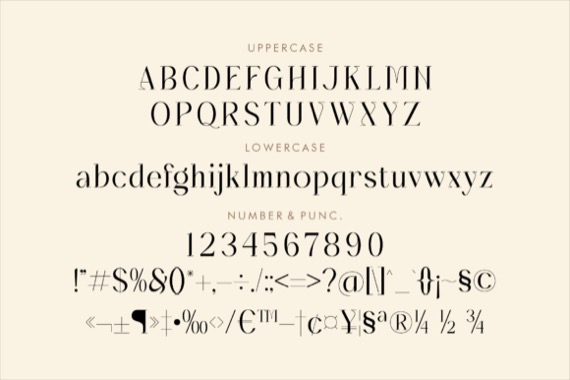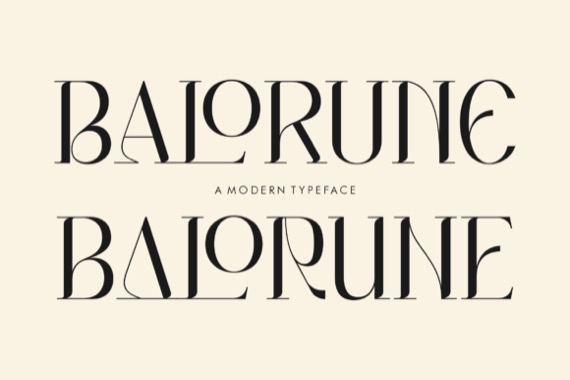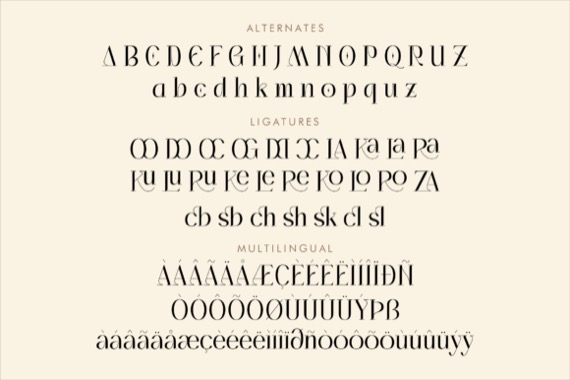
BALORUNE is a chic and cool serif font that was created and shared by Storytype Studio. A serif modern and classic typeface that has its own unique style & modern look. This typeface is perfect for an elegant & luxury logo, book or movie title design, fashion brand, magazine, clothes, lettering, quotes, and so much more.
Balorune Serif Font